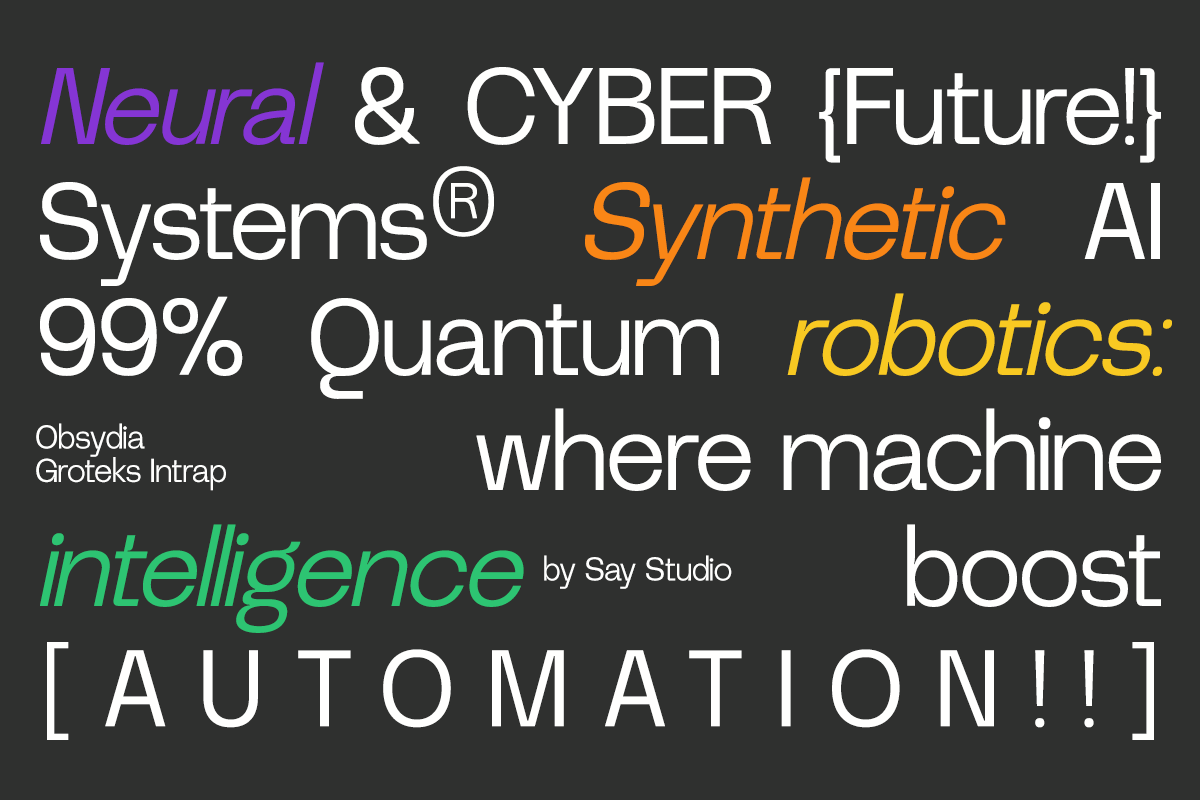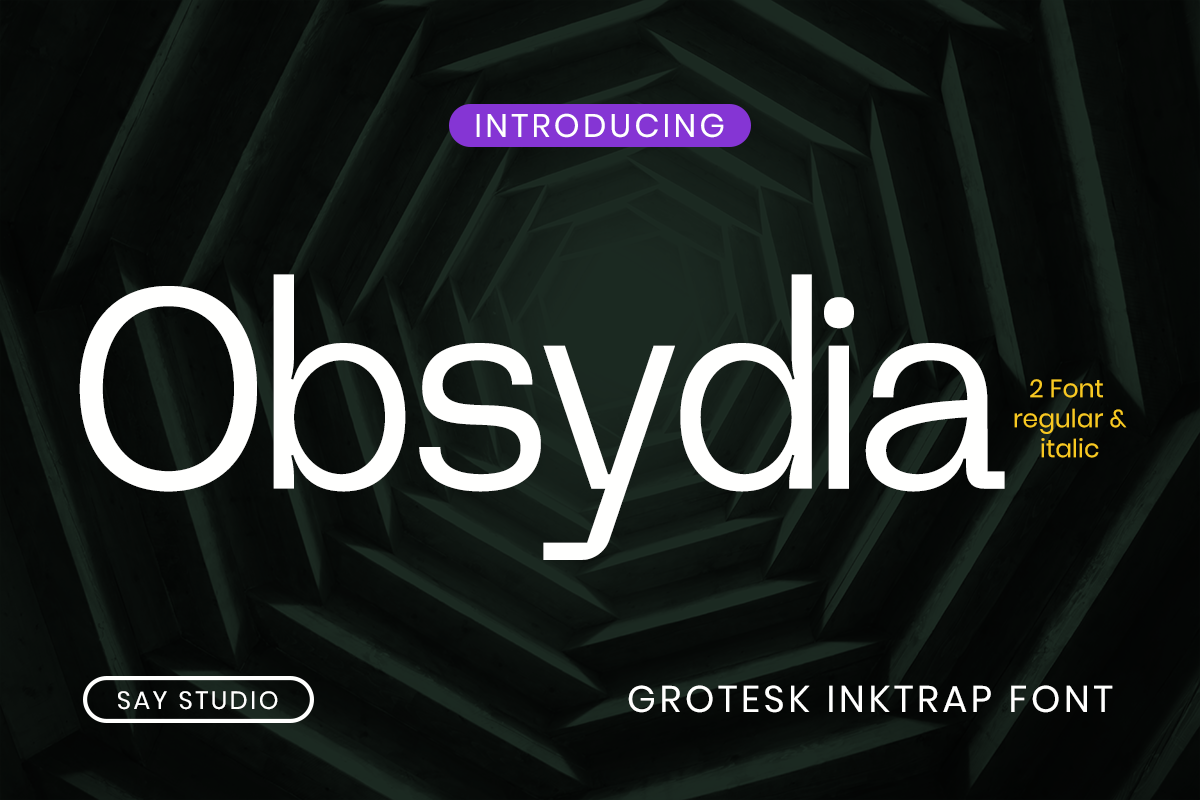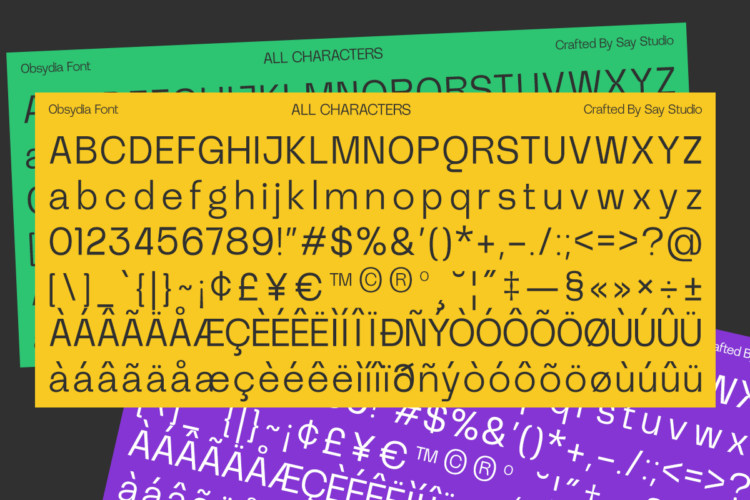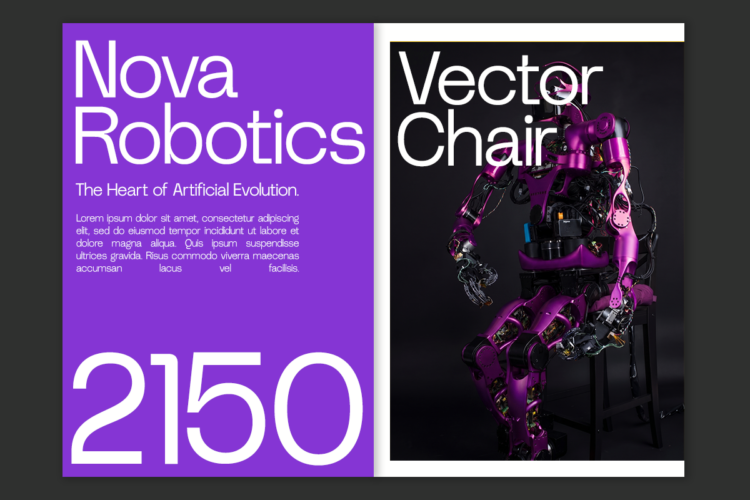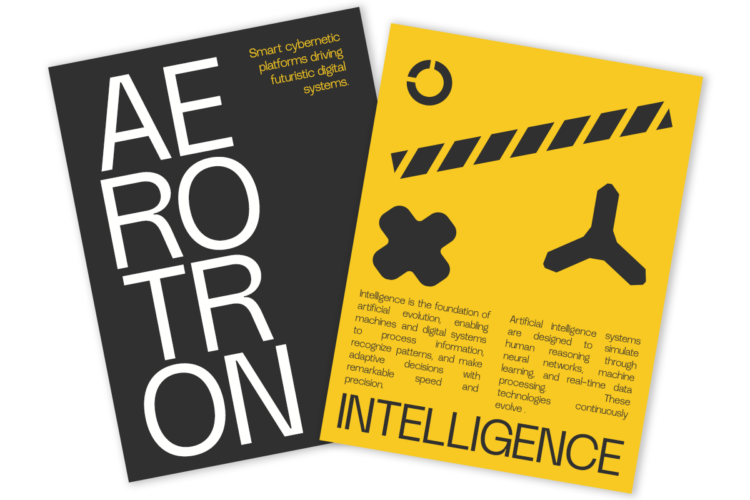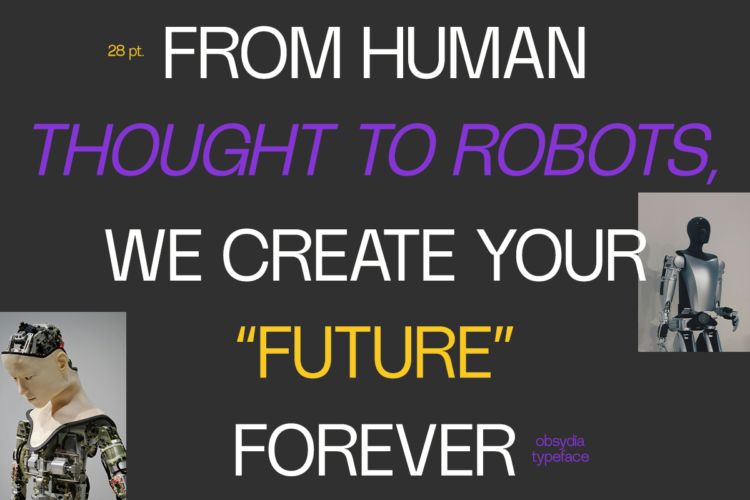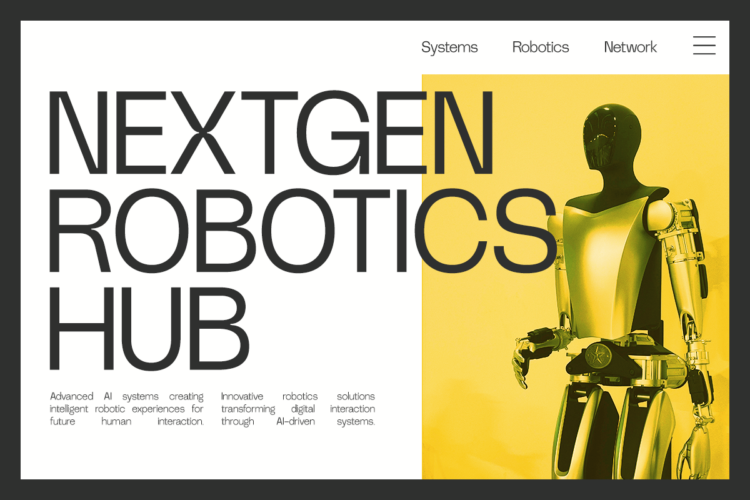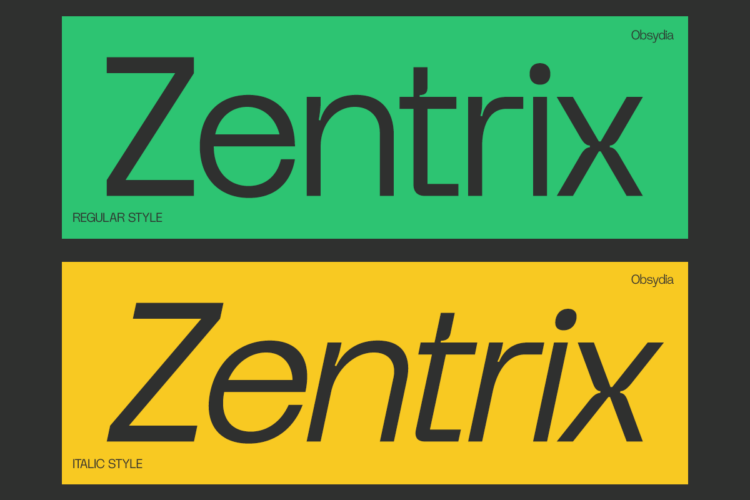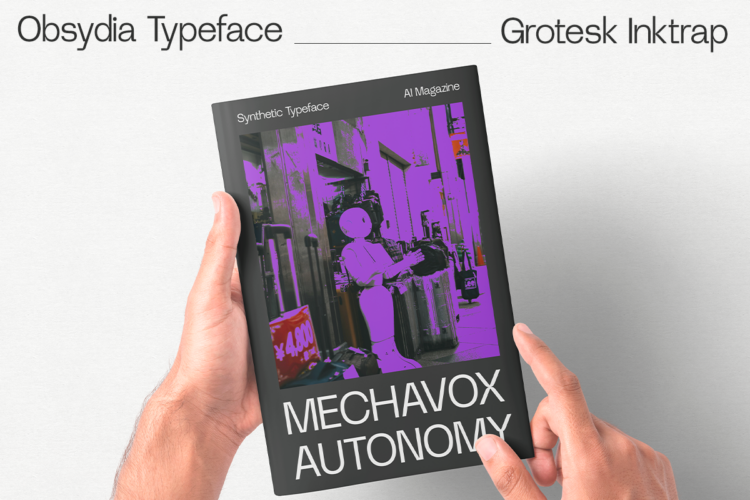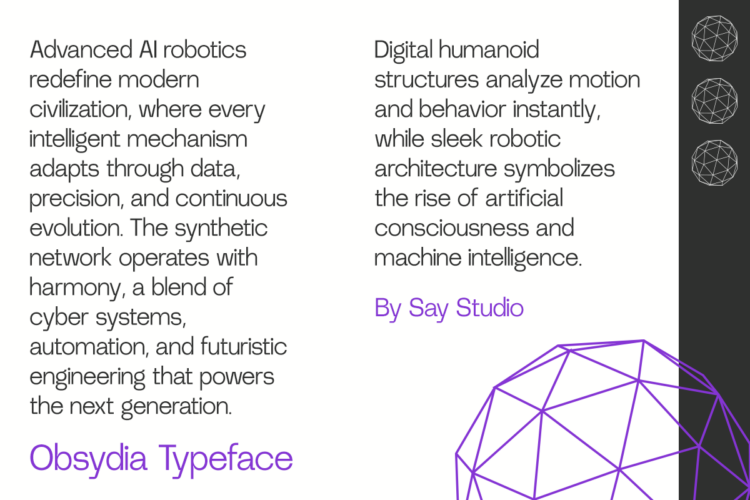
Obsydia – Futuristic Corporate Display Font
Obsydia is a futuristic grotesk inktrap sans serif font designed for cutting-edge branding, technology interfaces, and modern visual communication. Built with sleek geometric construction, precision-balanced proportions, and subtle inktrap detailing, this typeface delivers a clean industrial aesthetic that feels both highly functional and unmistakably contemporary. Perfect for AI branding, robotics campaigns, startup identities, editorial headlines, UI/UX design, posters, digital products, and modern corporate visuals.
Created for designers who need versatility with a strong technological personality, Obsydia performs beautifully across bold headlines, interface layouts, promotional graphics, and forward-thinking brand systems. Its minimalist structure, sharp readability, and modern grotesk character make it ideal for cyberpunk visuals, futuristic presentations, product packaging, innovation campaigns, and sleek typography-driven design work.
Featuring Regular & Italic styles, multilingual support, uppercase and lowercase characters, numerals, punctuation, and extensive special glyph coverage, Obsydia is a professional display sans font engineered for creators building next-generation design experiences.
- Regular and Italic Style
- Number and Punctuation